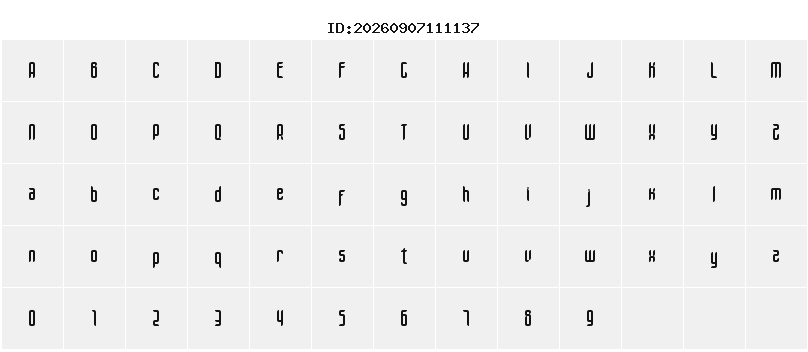
• Font Name: Unik Type 2.0
• Full Font Name: Unik Type 2.0 Regular
• Designer: Erik Getzel
• Description: “Unik Type 2.0” was built with FontStruct “Unik Type 2.0” is based on “Unik Type” by “Erik Getzel” (http://fontstruct.com/fontstructors/erikgetzel)
About Unik Type 2.0.ttf
Unik Type 2.0.ttf is a modern, elegant sans-serif font designed for ultimate readability and visual harmony. Perfect for branding, headlines, web design, and print materials.